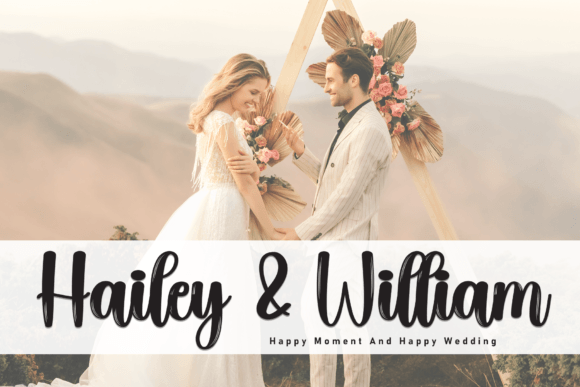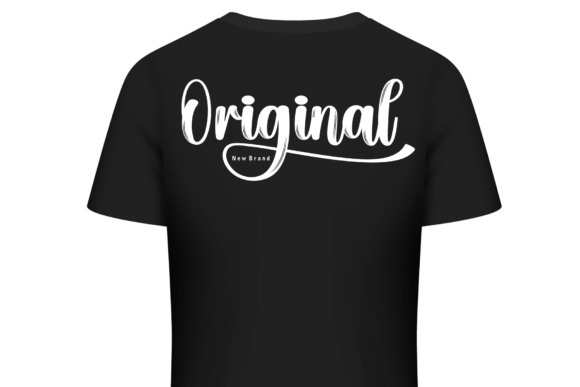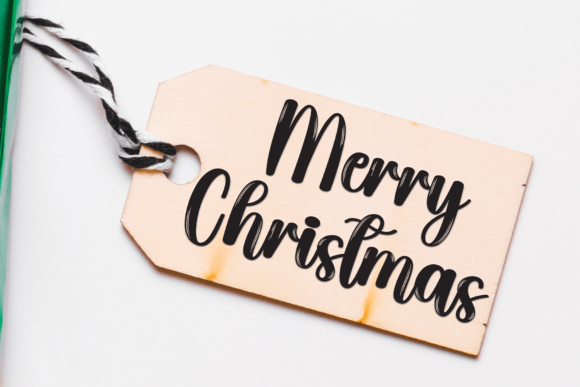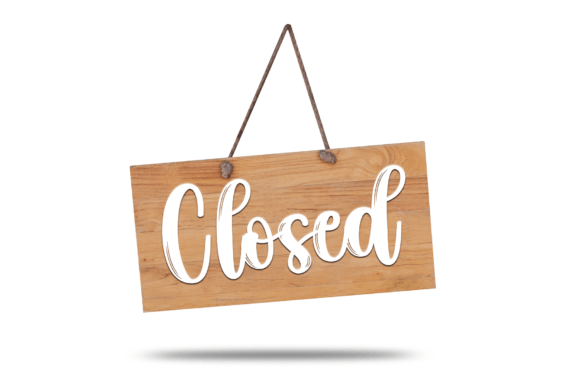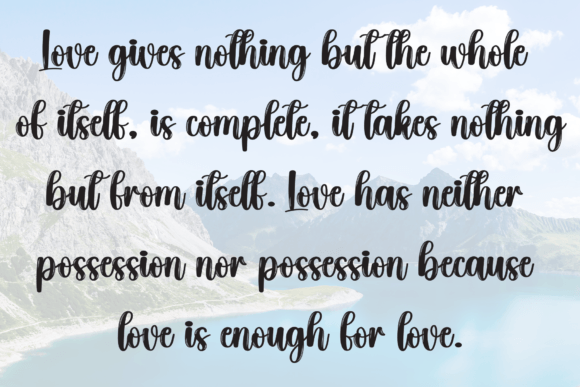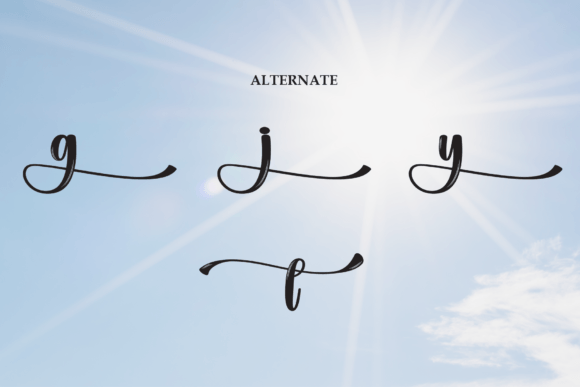
You’ve finally found the perfect moment to create something truly special. The coffee is hot, the music is just right, and your imagination is running wild. It’s the perfect time to unleash your creativity and bring your ideas to life. But, have you thought about the font that will set the tone for your masterpiece?
Enter Brightsun Font, the exquisite handwritten font that’s sure to become a true favorite. Designed to evoke classy calligraphic influences while feeling fresh and contemporary, Brightsun Font is the perfect addition to any project. Whether you’re a seasoned designer or just starting out, this font is a valuable asset that will elevate your work to new heights.
With its unique blend of elegance and modernity, Brightsun Font is the perfect choice for designers looking to add a touch of sophistication to their projects. So why settle for an ordinary font when you can have a truly exceptional one?
Brightsun Font Key Features
- Font Family: Brightsun Font comes in two font families: Regular and Italic, with 6 weights ranging from Thin to Black.
- Resolution: The font is designed to be resolution-independent, ensuring it looks great at any resolution, from screen to print.
- Unique Characteristics: Brightsun Font features a unique blend of modern and vintage elements, with a distinctive flair that sets it apart from other fonts.
- Font Metrics: The font has a x-height of 0.5, an ascender height of 0.7, and a descender height of 0.3, making it well-suited for body text and headings.
Brightsun Font Review
Overall, I’m quite impressed with the Brightsun Font, but like any other font, it has its strengths and weaknesses.
- The font’s clean and modern design makes it perfect for digital interfaces and branding materials.
- It’s highly legible, even at small font sizes, which is crucial for readability on various devices.
- The font’s versatility allows it to be used in a wide range of applications, from logos to body text.
- The weight and style options provide a good balance between readability and visual appeal.
- The font may not be as effective for print materials, as it can appear too thin and delicate.
- The font family is relatively small, which may limit its use in certain applications.
- The font’s style options can make it look a bit too uniform, which may not be suitable for every design project.
Overall, I’d give the Brightsun Font a solid 4 out of 5 stars. It’s a great addition to any designer’s toolkit, but it’s essential to consider the specific requirements of each project before choosing this font.
Use Brightsun Font for creating a modern and elegant design.
Use it for headings and titles to create a professional look.
Combine Brightsun Font with other fonts for a unique and creative design.
Brightsun Font is commonly used for:
– Creating invitations and event materials
– Designing business cards and brochures
– Creating social media graphics and advertisements
– Writing and publishing e-books and articles
Alternatives to Brightsun Font
Great Vibes Font is a modern, elegant script font perfect for creating a luxurious and sophisticated feel. It’s ideal for wedding invitations, luxury branding, and high-end advertising. Great Vibes Font has a more refined and polished look compared to Brightsun Font, which can appear more rustic and playful.
Alex Brush Font is a beautiful, handwritten script font that adds a touch of elegance and sophistication to any design. It’s perfect for creating a unique and personalized feel, especially for invitations, greeting cards, and luxury branding. Alex Brush Font is more refined and delicate compared to Brightsun Font, making it suitable for more formal designs.